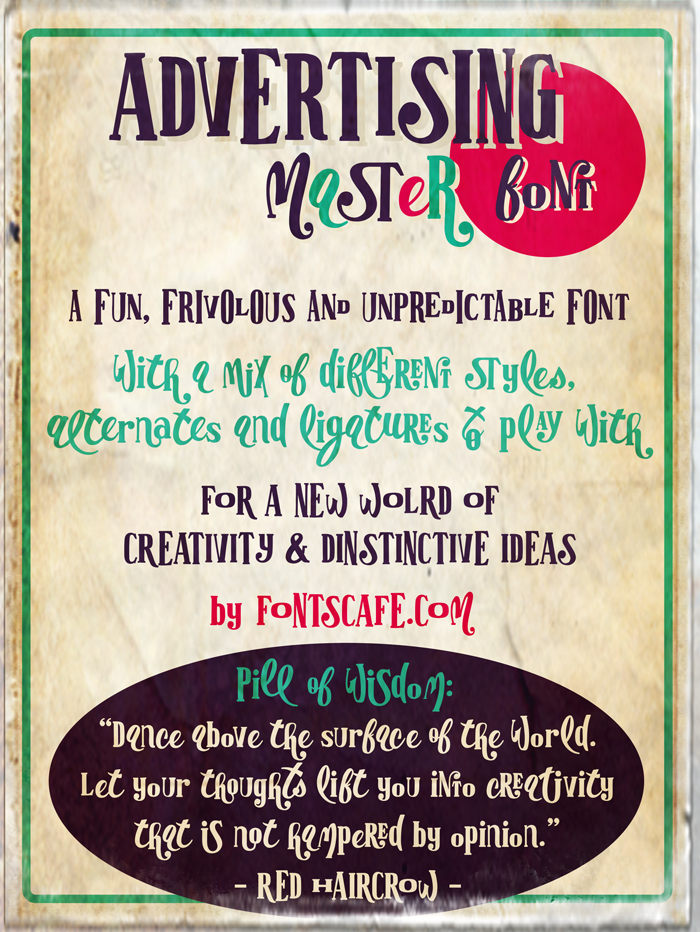
Font name: | Advertising Master |
Author: | Fontscafe.com |
Note by Fontscafe.com | |
We surfed and looked beyond the common rules of fonts to find and create a new dimension, a new atmosphere, where different styles play together to create new emotional feelings of curiosity and playfulness that may solicit the ATTENTION and the CURIOSITY to your final audience for whom your graphics,advertising ads or posters are designed to be. A mix of styles for this fun and a bit eccentric font which comes in the full version with a big set of 72 alternates and 53 ligatures able to creates, with its unique, unusual and unpredictable nature, a slightly provoking feeling which brings involvement to your piece of art. Check the FULL version available here https://fontscafe.com/font/advertising-master OR if you're looking for a complete set of amazing Advertising tools, don't miss the whole Ottanio Advertising Master pack! https://fontscafe.com/fonts-packages/ottanio-advertising-master-pack You won't be disappointed! ;) Terms of Use (short version): It's okay to use this DEMO version of Advertising Master font for personal, non-commercial uses like designing greeting cards, invitations, labels, posters and even to create graphics for your personal blog. HOWEVER, if you decide to use this, or any other Fonts Caf� font for your business, please purchase a license: the prices are fair and you will be supporting a small, nice, independent font company. :) The typefaces we design and sell on our secure website are our livelihood. |